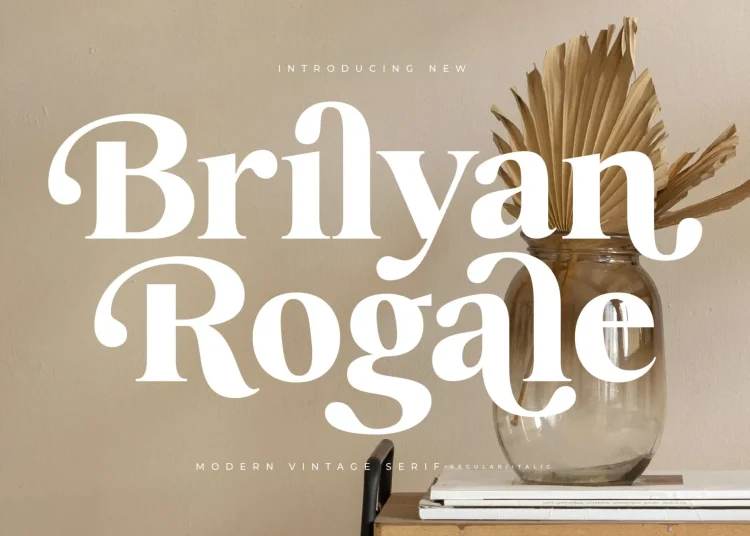
Brilyan Rogale Font
Brilyan Rogale stands as a pinnacle of typographic elegance, a serif font that beckons with its captivating allure and refined design. Crafted to evoke a sense of grandeur, its majestic serifs and intricate details exude an unparalleled sophistication that elevates any composition it graces.
Embrace the timeless grace of Brilyan Rogale and infuse your creations with an aura of distinction. Whether adorning logos, brand designs, or product packaging, this font commands attention and leaves a lasting impression. From cups to inspirational quotes, posters to tote bags, its versatility knows no bounds, seamlessly integrating into projects that aspire for sophistication and style.
Brilyan Rogale lends its regal presence to a myriad of endeavors, from book jackets to business cards, event invites to greeting cards. Each stroke of this font exudes luxury, adding a touch of refinement to photography work and serving as a watermark for images that demand attention.